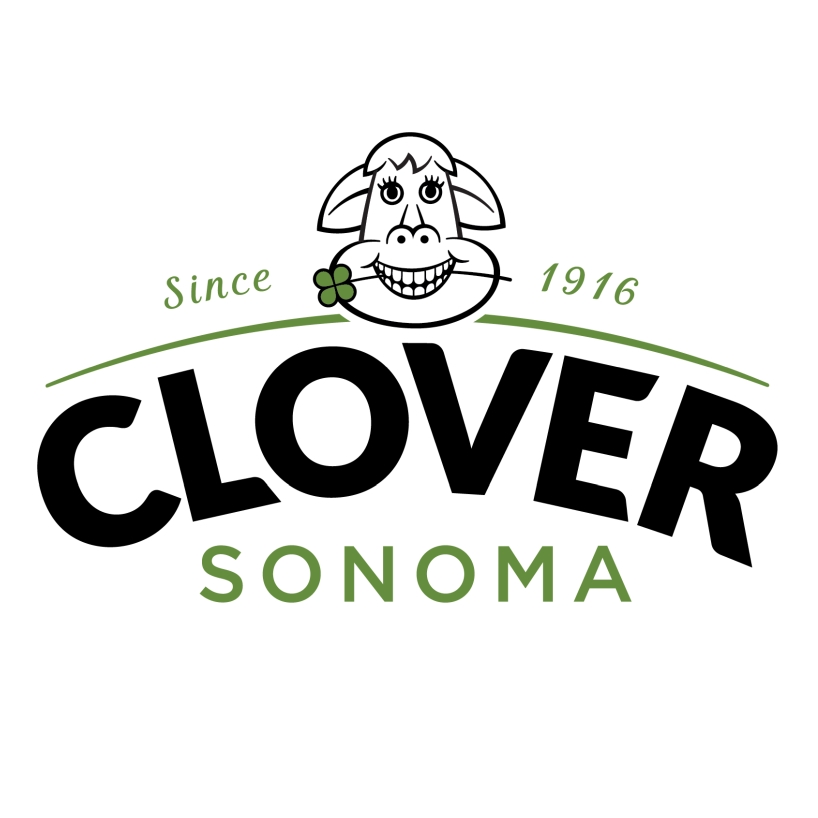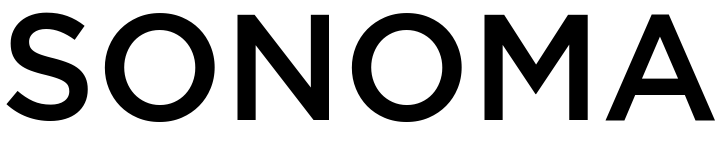
Clover Sonoma Font
Fonts in UseClover Sonoma is a family-owned dairy company that produces and distributes a variety of organic and conventional dairy products in grocery stores throughout California and parts of Nevada.
In 2017, Clover rebranded as Clover Sonoma, using Lato Black and Gotham Medium fonts for the "Clover" and "Sonoma" parts respectively, and Kathya Script for "Since 1916". Lato is a humanist sans-serif font and can be downloaded for free from the Fonts Used Section.